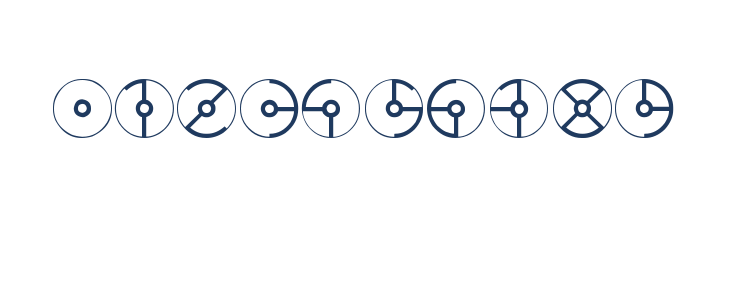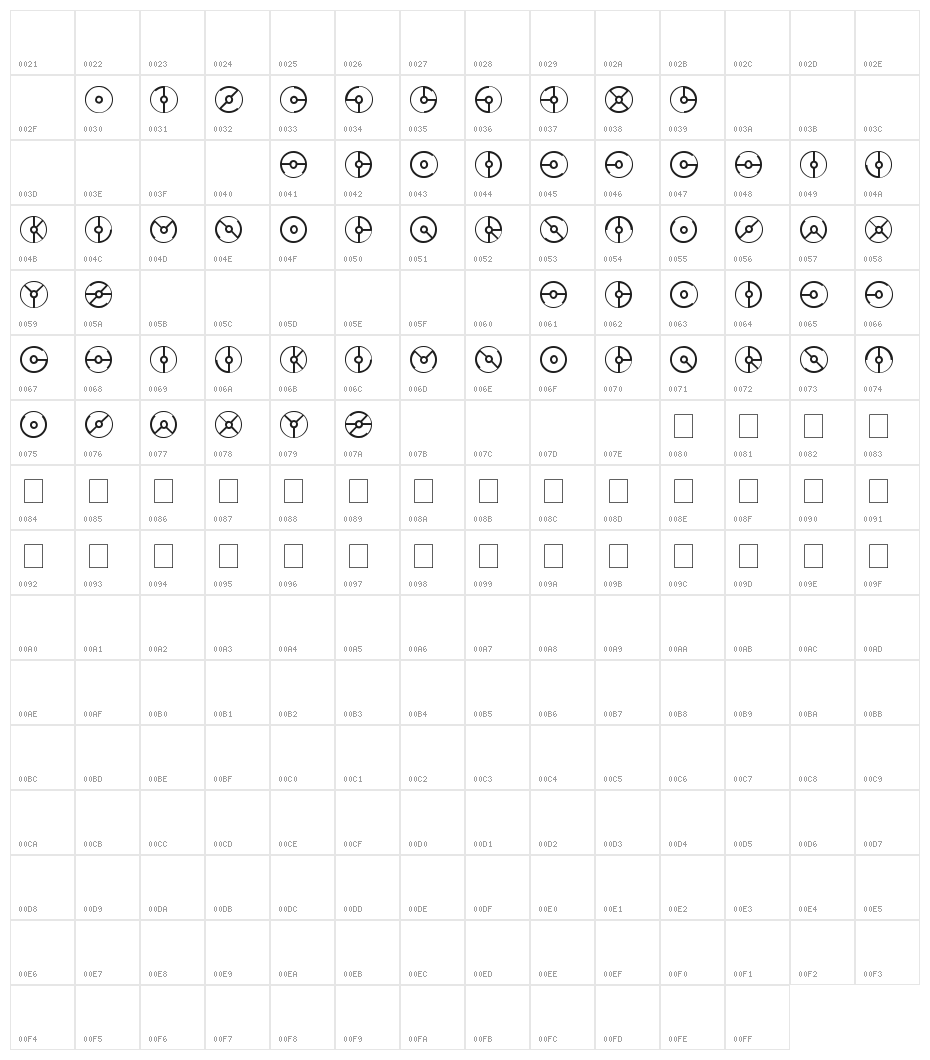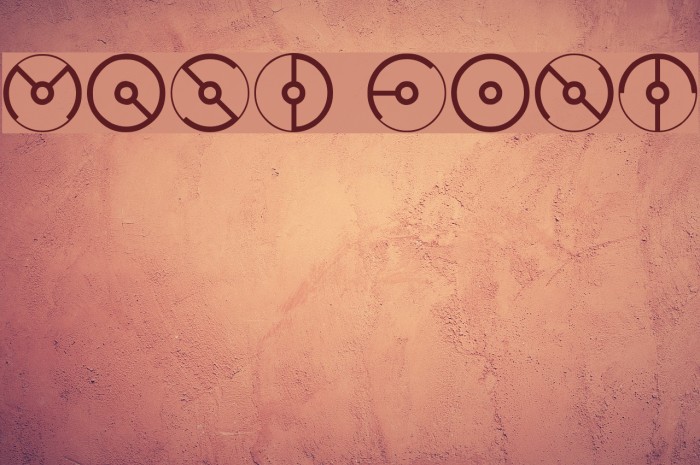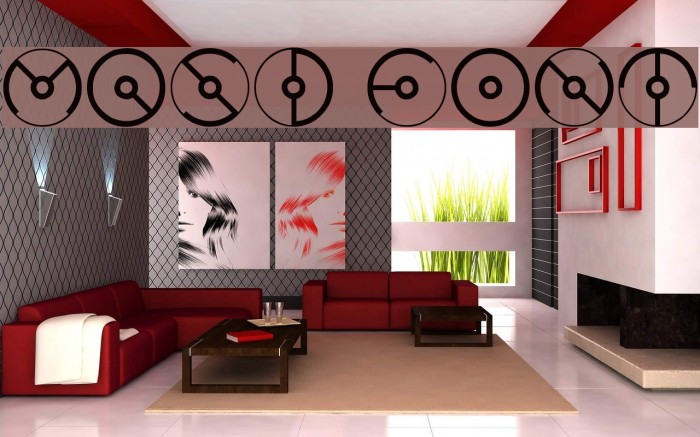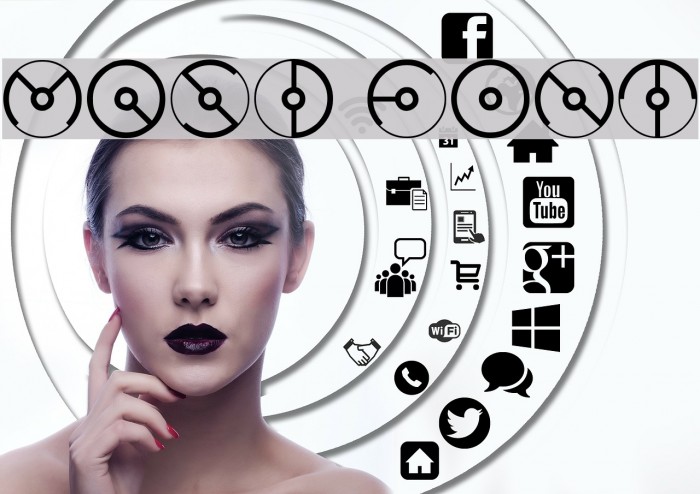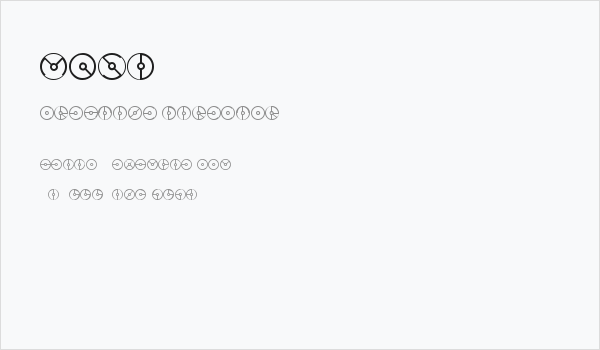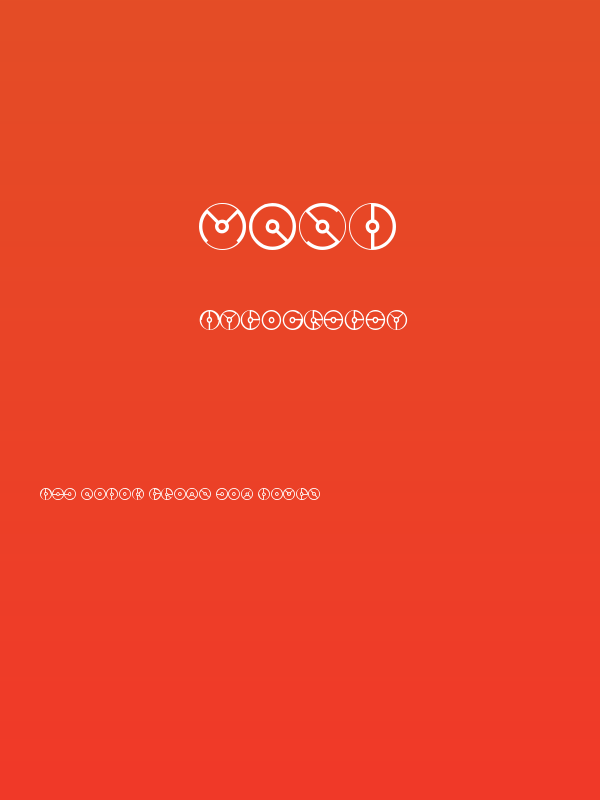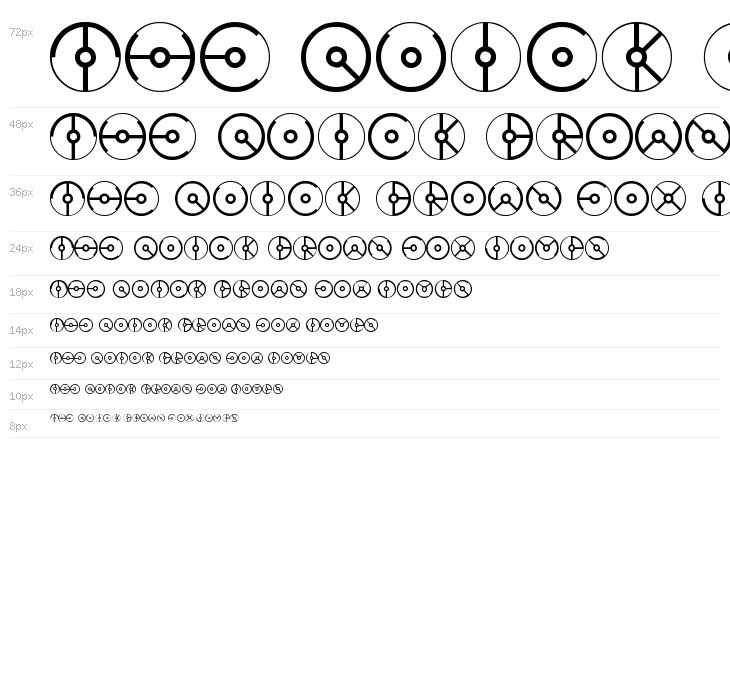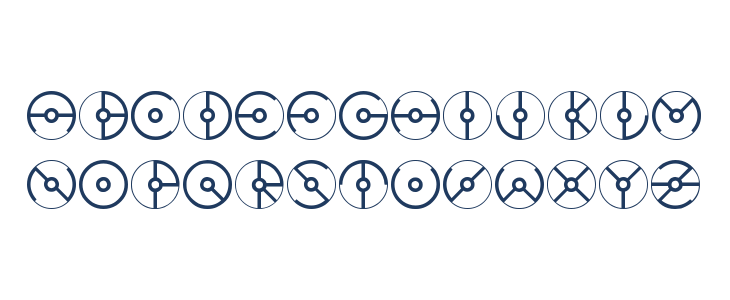
mqsd Font
mqsd Description
This font features a unique, circular design where each character is enclosed within a circle, resembling a futuristic or technological interface. The characters are composed of geometric shapes and lines, creating a sense of symmetry and balance. The design is highly stylized, with each letter and number having a distinct, abstract appearance. The font's aesthetic is reminiscent of sci-fi themes, making it ideal for projects that require a modern and innovative look. The consistent use of circles and lines gives it a cohesive and uniform appearance, while the abstract nature of the characters adds an element of intrigue and creativity.
| Overall Style | Futuristic, Abstract |
| Use Case | Logos, Posters, Branding |
| Proposed Projects | Ideal for sci-fi themed projects, tech branding, innovative product packaging, and modern art installations. |